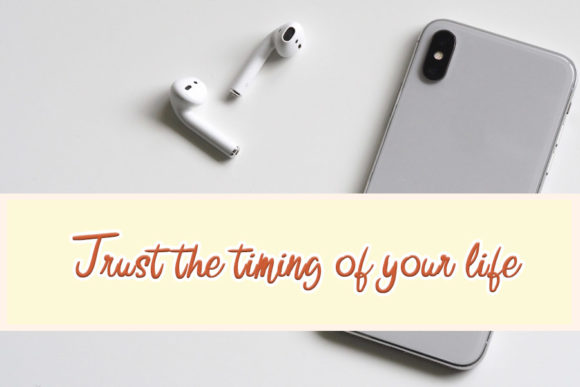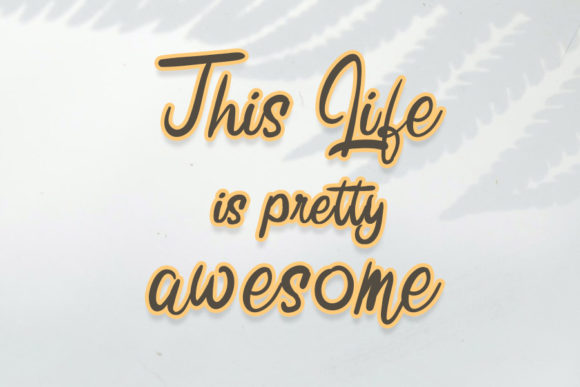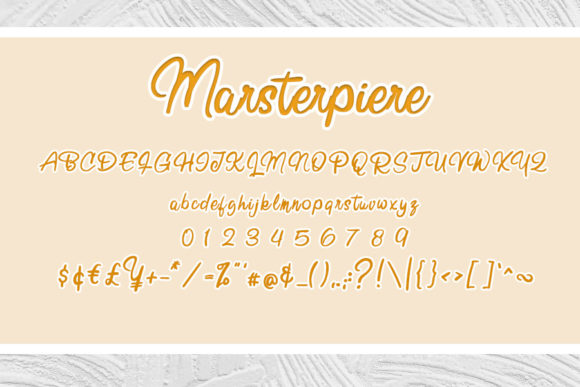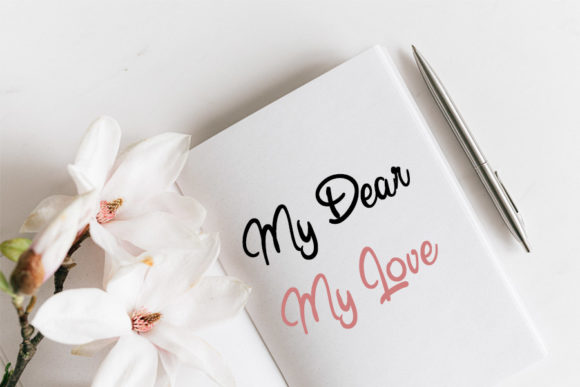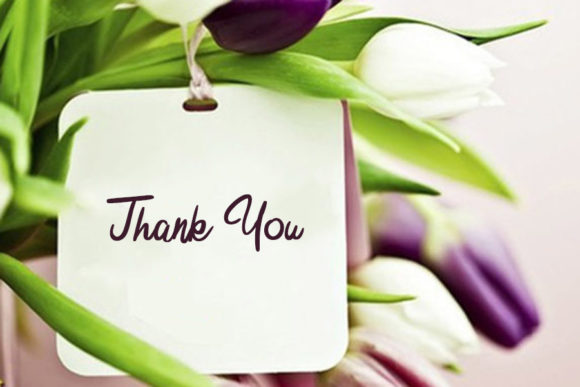
Masterpiere Font
About Masterpiere Font
Masterpiere is a flowing and well balanced handwritten font. Masterfully designed to become a true favorite, this font has the potential to bring each of your creative ideas to the highest level!